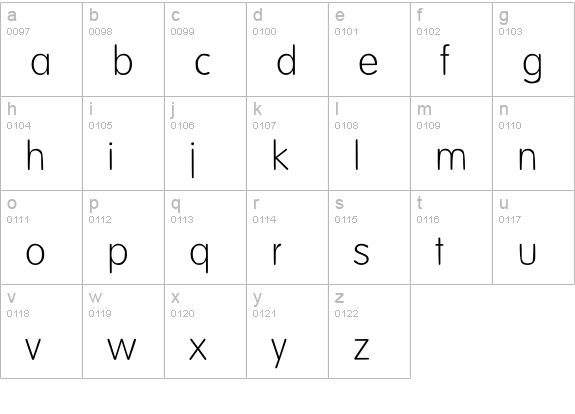
Elementary Light SF Font Details
Elementary Light SF is a refined, elegant variant in the Elementary typeface family \xE2\x80\x94 well suited to elegant body text, refined sub-headings, and luxury branding.
Elementary Light SF is a modern and sleek sans-serif font that exudes simplicity and elegance. With its clean lines and minimalist design, this font is perfect for a wide range of design projects, from branding to editorial design. Its light weight gives it a delicate and airy feel, making it ideal for creating a sense of sophistication and refinement. What's even better? Elementary Light SF is freely available to download at FontsMarket.com, allowing you to effortlessly incorporate this stylish font into your designs without any cost. Whether you're working on a website, poster, or any other creative project, Elementary Light SF is sure to add a touch of class and professionalism. Download it today and elevate your designs with this versatile and visually appealing font.